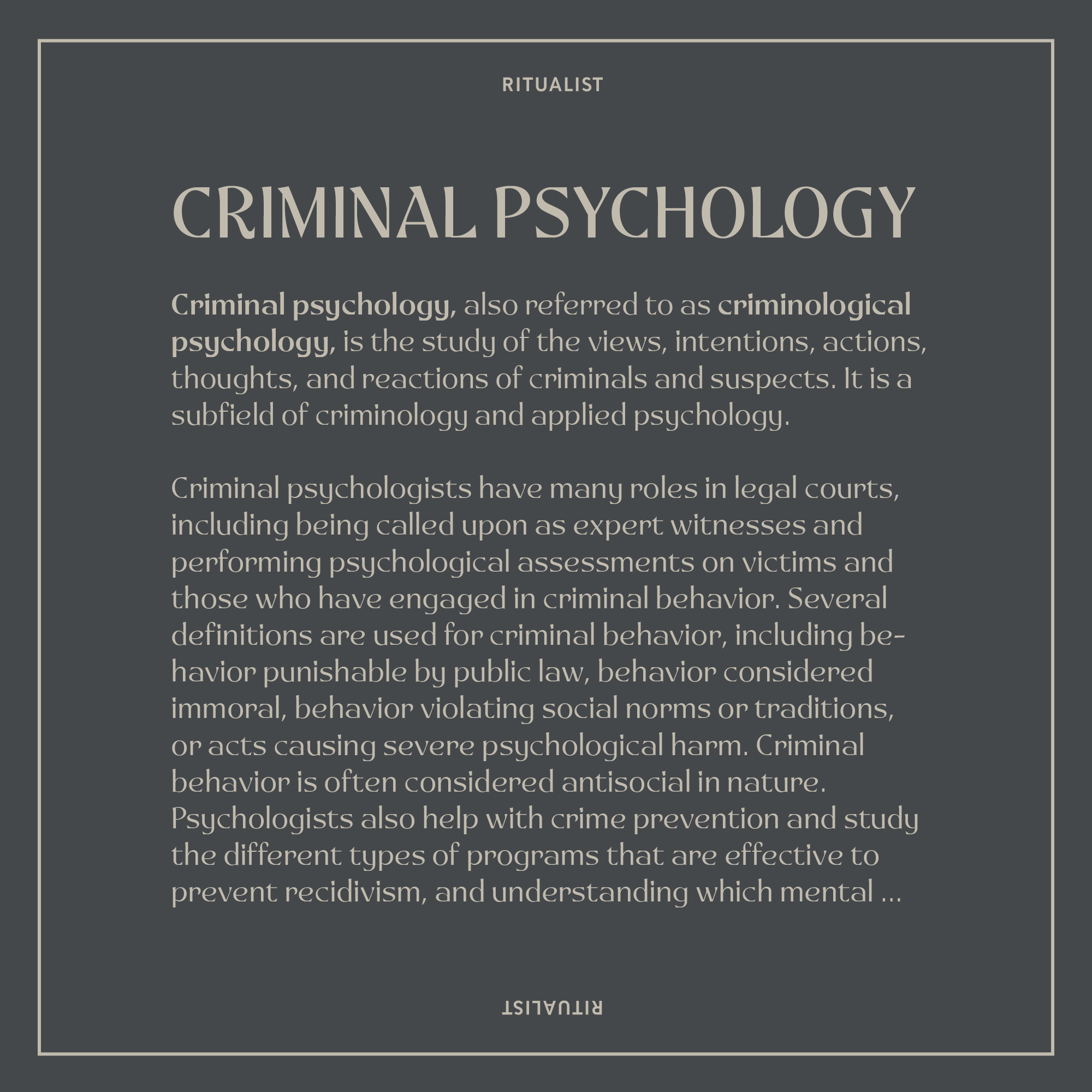
Ritualist
Sharp as a knife and dangerously alluring.
Designed by Justin Penner
Story
Ritualist by Justin Penner takes inspiration from high-contrast wedge serif designs, like the 19th century typeface De Vinne, but viewed through a macabre lens. This seriously fas­cinating design is defined by its infinitely sharp points, and some dangerous curves that accelerate like the edge of a blade.
Oc­cupying a sur­repti­tious space between beauty and darkness, Ritualist is elegant, al­luring, vaguely exotic, and don’t look now but it might be suspiciously watching from across the street.
The family com­prises 18 styles (9 weights plus italics), and has a Variable ver­sion. The expansive set of over 1,000 glyphs in Ritualist makes it usable in hun­dreds of languages around the world, including full Vietnamese support, and support for languages that have local style preferences like Polish, Catalan, Marshallese, Romanian, Sami, and numerous African languages. The glyph repertoire also includes many IPA characters, thus enabling support for many indigenous languages in North America and elsewhere.
Use Ritualist as your new secret weapon when the creative brief requires your designs to give vibes of in­trigue, darker desires, and mys­tical en­coun­ters. Set it large for arresting headlines and titles that dominate while preserving the mood with middle range of weights for subheads and brief bits of copy. Careful though, you may become obsessed with Ritualist — or so we hope. •!•